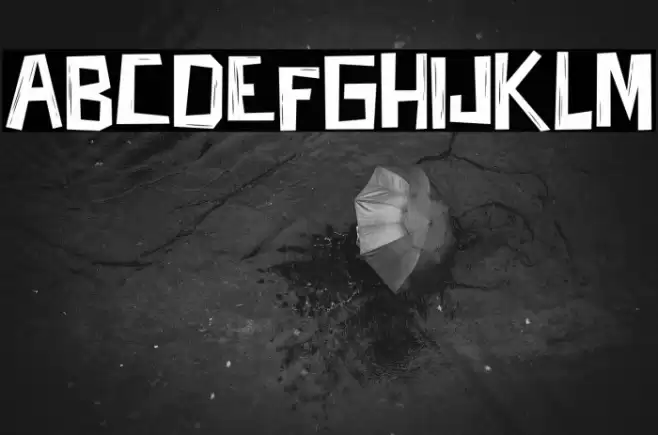
Fifties Movies Font
Fifties Movies Description
This font exudes a bold, retro vibe reminiscent of mid-20th century movie posters. The characters are blocky and angular, with a hand-drawn feel that adds a touch of vintage charm. The strokes are uneven, giving each letter a dynamic and energetic appearance. The uppercase and lowercase letters maintain a consistent style, while the numbers and special characters complement the overall aesthetic. This font is perfect for capturing the essence of the 1950s with its unique and eye-catching design.
A bold, retro font with a hand-drawn, vintage movie poster style from Uncategorized fonts.
- Proposed Projects: Ideal for retro-themed posters, vintage branding, and creative projects that require a nostalgic touch.
- Overall Style: Vintage